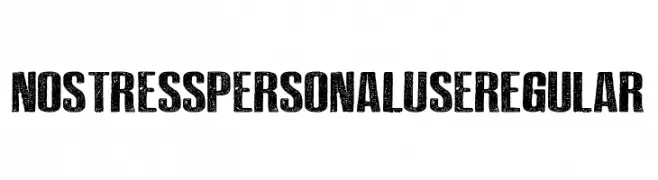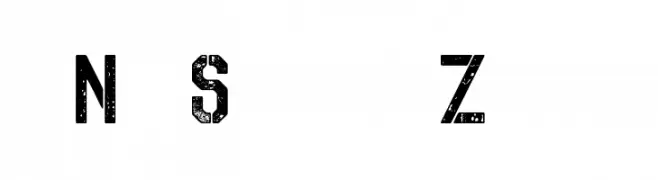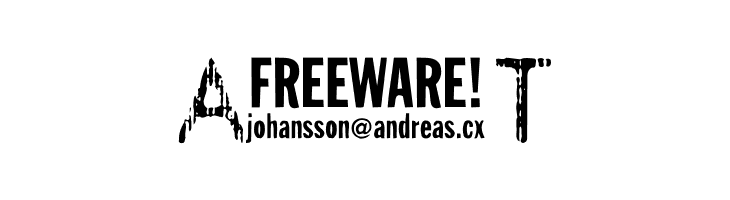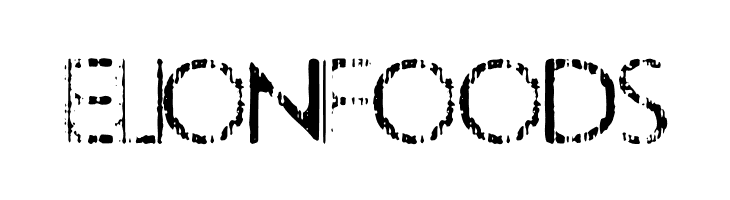
A bold, textured font with diagonal line patterns, perfect for modern displays.
A bold, distressed font with a grunge texture for an edgy, impactful look.
A modern inline font with geometric precision and a stylish, airy appearance.
A bold, distressed stencil font with a rugged, industrial feel.
A bold, distressed font with a vintage, grunge texture.
A playful, hand-drawn font with bold, irregular strokes and a whimsical style.